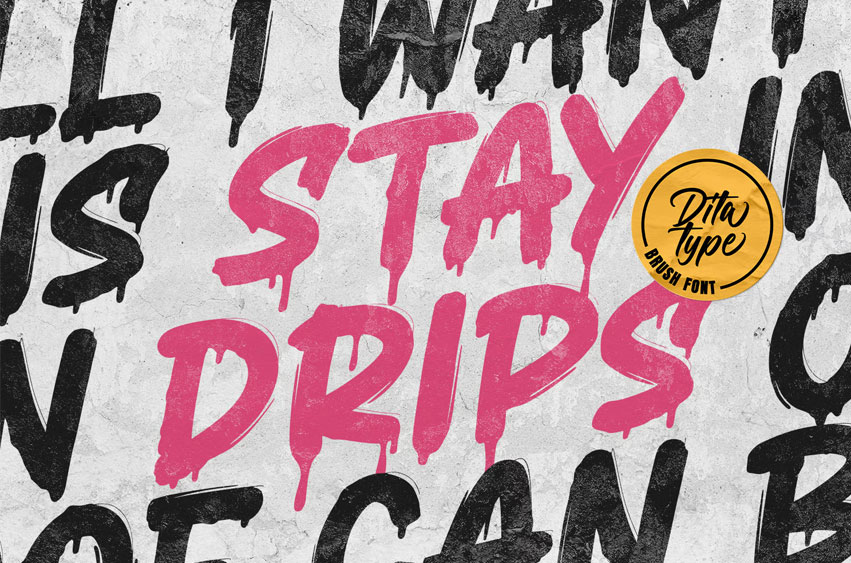
Stay Drips Font
Stay Drips Font is an interesting, unique font in capital letters with uneven edge lines and ink drop details to give lovely, dynamic visual effects. The letters have soft brush wipes, and the ink drop details on some letter parts show a unique nuance of organic and artistic touch.
The font’s unique, flexible characteristics can carry on various design styles such as formal, creative, and experimental ones. Designs with this font will express strong, amazing, unique impressions. In addition, bright and contrast colors will outstand this dynamic font that is more applicable for big text sizes to be greatly legible. You can also enjoy the available features here.
Stay Drips fits best for various design projects, such as brandings, quotes, printed products, merchandise, social media, etc. Find out more ways to use this font by taking a look at the font preview.